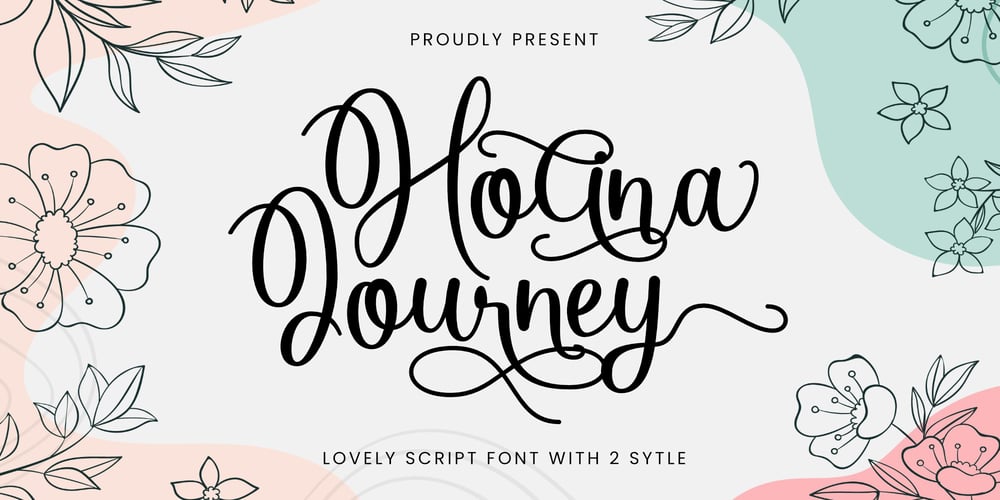
Holina Journey
Holina Journey font
Holina Journey Font Family was designed by Dida Ahluddin and published by ahweproject. Holina Journey contains 2 styles and family package options. Holina Journey is a beautiful and romantic handwritten font. It looks amazing on thank you cards, quotes, wedding invitations, greeting cards, business cards, logos and any other design that requires a touch of handwriting.This font is PUA encoded which means you can access all the glyphs and swashes easily!